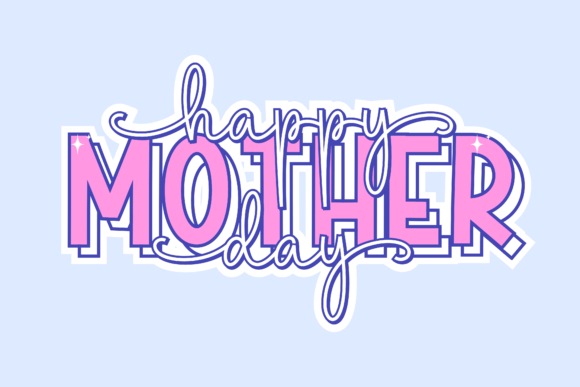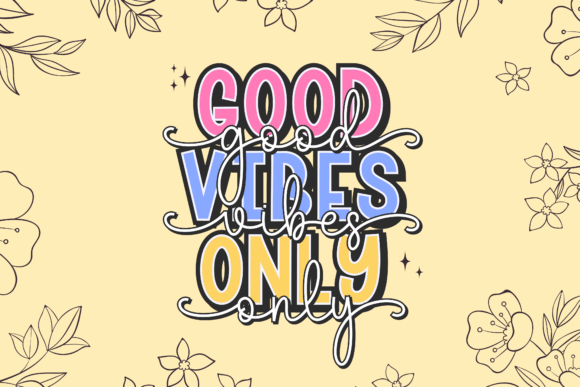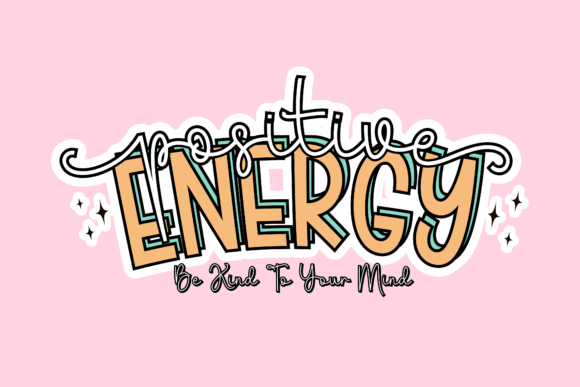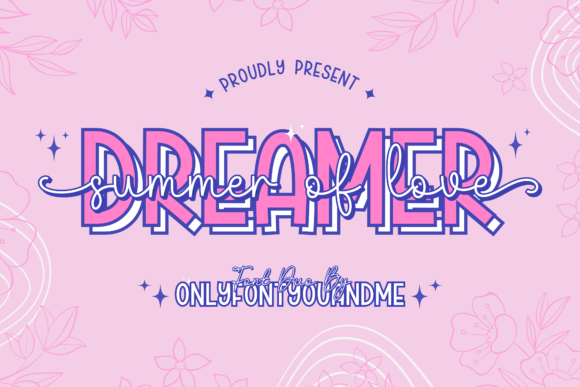
Dreamer Summer of Love Font: Elevate Your Designs with Elegance and Charm
Are you a designer, crafter, or DIY enthusiast looking for a font that can add a touch of sophistication and charm to your projects? Look no further than the Dreamer Summer of Love Font, a beautiful handwritten duo font that is sure to elevate your designs to the next level. With its strong distinctive character and elegant flowing curves, this font is perfect for a wide range of creative projects, from wedding invitations and stickers to heartfelt letters and more.
A Font that Tells a Story
The Dreamer Summer of Love Font is more than just a collection of letters – it’s a work of art that invites you to immerse yourself in the art of expression. Each letter has been carefully crafted to have a unique and distinctive character, with flowing curves and smooth lines that make it a joy to use. Whether you’re looking to add a touch of whimsy to your designs or create a more formal and elegant look, this font is sure to deliver.
One of the things that sets the Dreamer Summer of Love Font apart is its versatility. This font is perfect for a wide range of creative projects, including:
- Wedding invitations and stationery: Add a touch of elegance and sophistication to your wedding invitations, save the dates, and other stationery with this beautiful font.
- Stickers and labels: Use the Dreamer Summer of Love Font to create custom stickers and labels that are sure to stand out.
- Heartfelt letters and journals: Add a personal touch to your letters and journals with this beautiful and expressive font.
- DIY crafts and decorations: Use this font to add a touch of personality to your DIY crafts and decorations, from signs and banners to cards and gift tags.
Why Choose the Dreamer Summer of Love Font?
So why choose the Dreamer Summer of Love Font for your next project? Here are just a few reasons why this font stands out:
- Unique and distinctive character: This font has a strong and distinctive character that is sure to set your designs apart.
- Elegant and sophisticated: The flowing curves and smooth lines of this font give it an elegant and sophisticated feel that’s perfect for formal and informal projects alike.
- Versatile: This font is perfect for a wide range of creative projects, from wedding invitations and stickers to heartfelt letters and DIY crafts.
Tips for Using the Dreamer Summer of Love Font
Here are a few tips for getting the most out of the Dreamer Summer of Love Font:
- Experiment with different sizes and colors: Don’t be afraid to experiment with different sizes and colors to find the look that’s right for your project.
- Pair with other fonts: Try pairing the Dreamer Summer of Love Font with other fonts to create a unique and interesting look.
- Use it to add a personal touch: Use this font to add a personal touch to your designs, whether it’s a wedding invitation or a handmade card.
The Dreamer Summer of Love Font is a beautiful and versatile font that is sure to elevate your designs to the next level. With its strong distinctive character, elegant flowing curves, and smooth lines, this font is perfect for a wide range of creative projects. Whether you’re a designer, crafter, or DIY enthusiast, this font is sure to inspire you to create something truly special. So why wait? Download the Dreamer Summer of Love Font today and start creating your own beautiful designs!